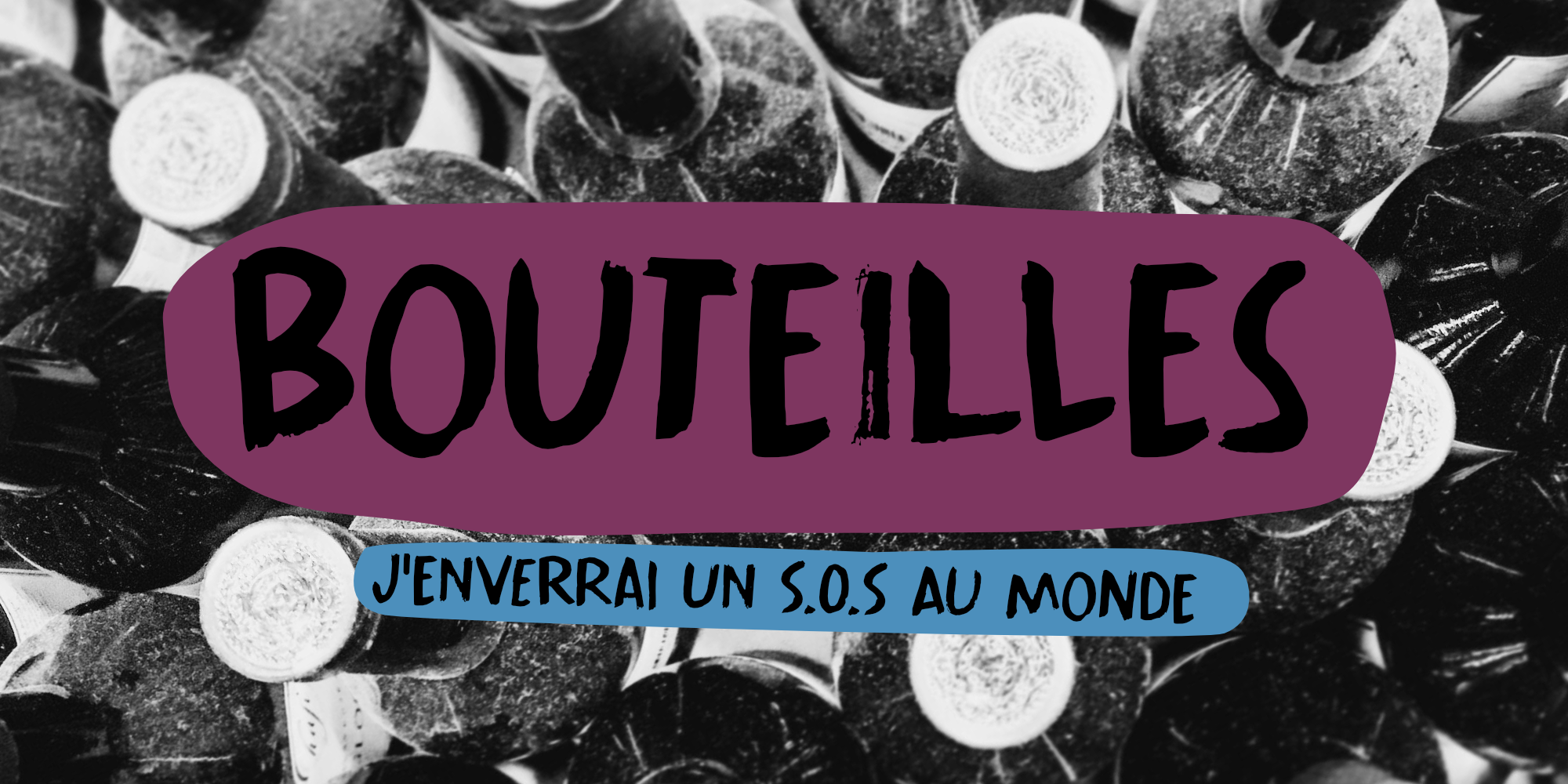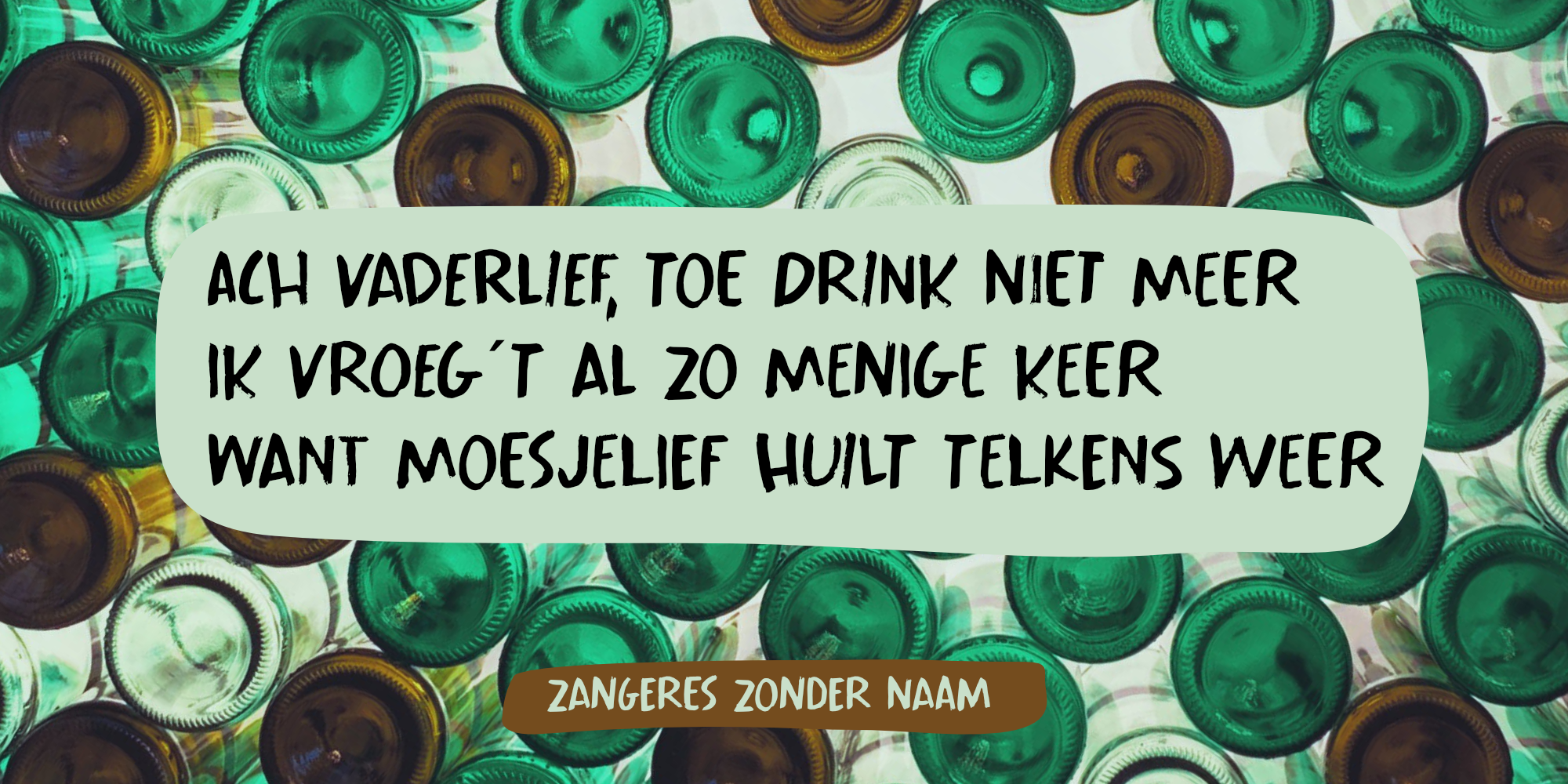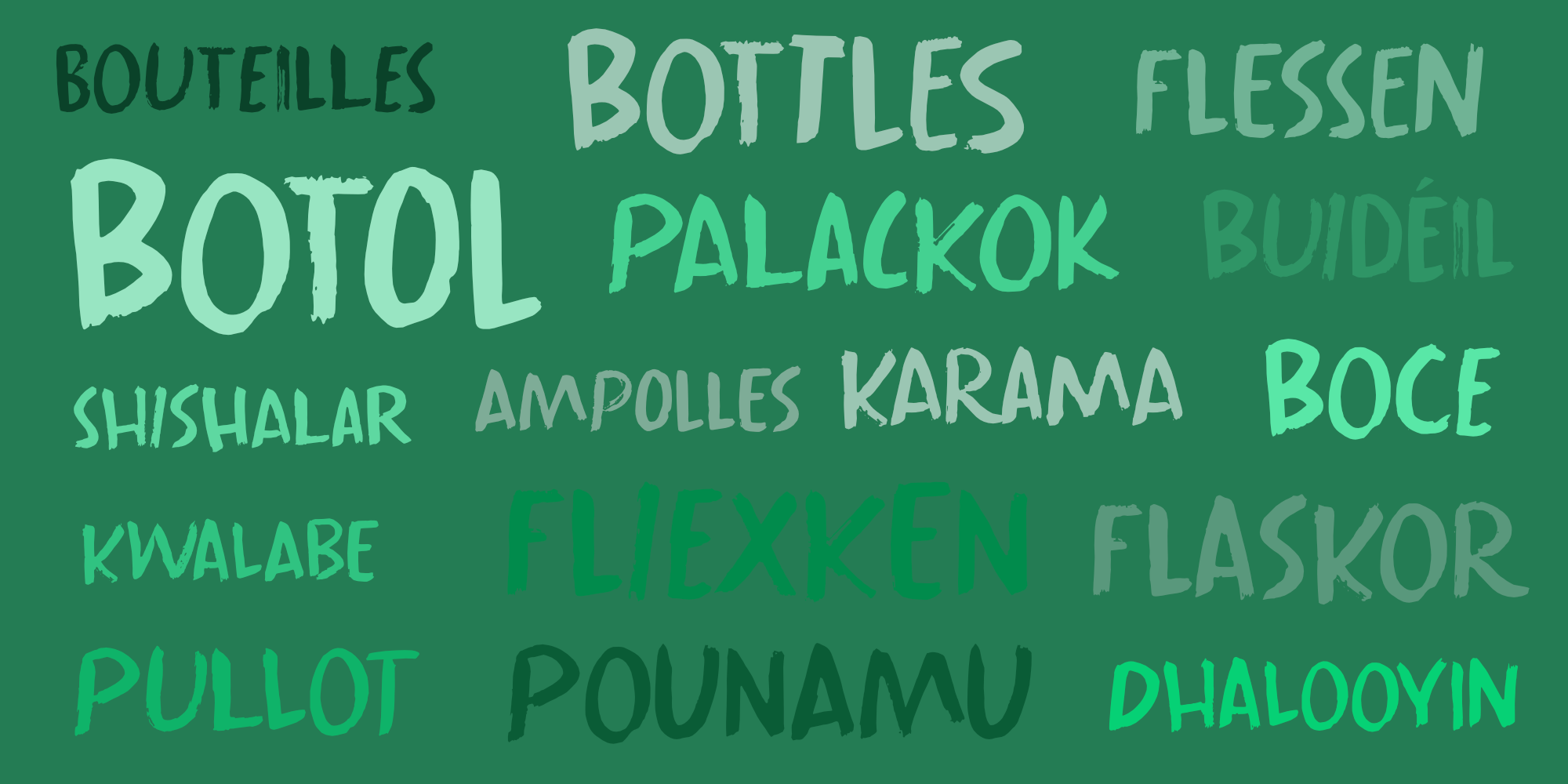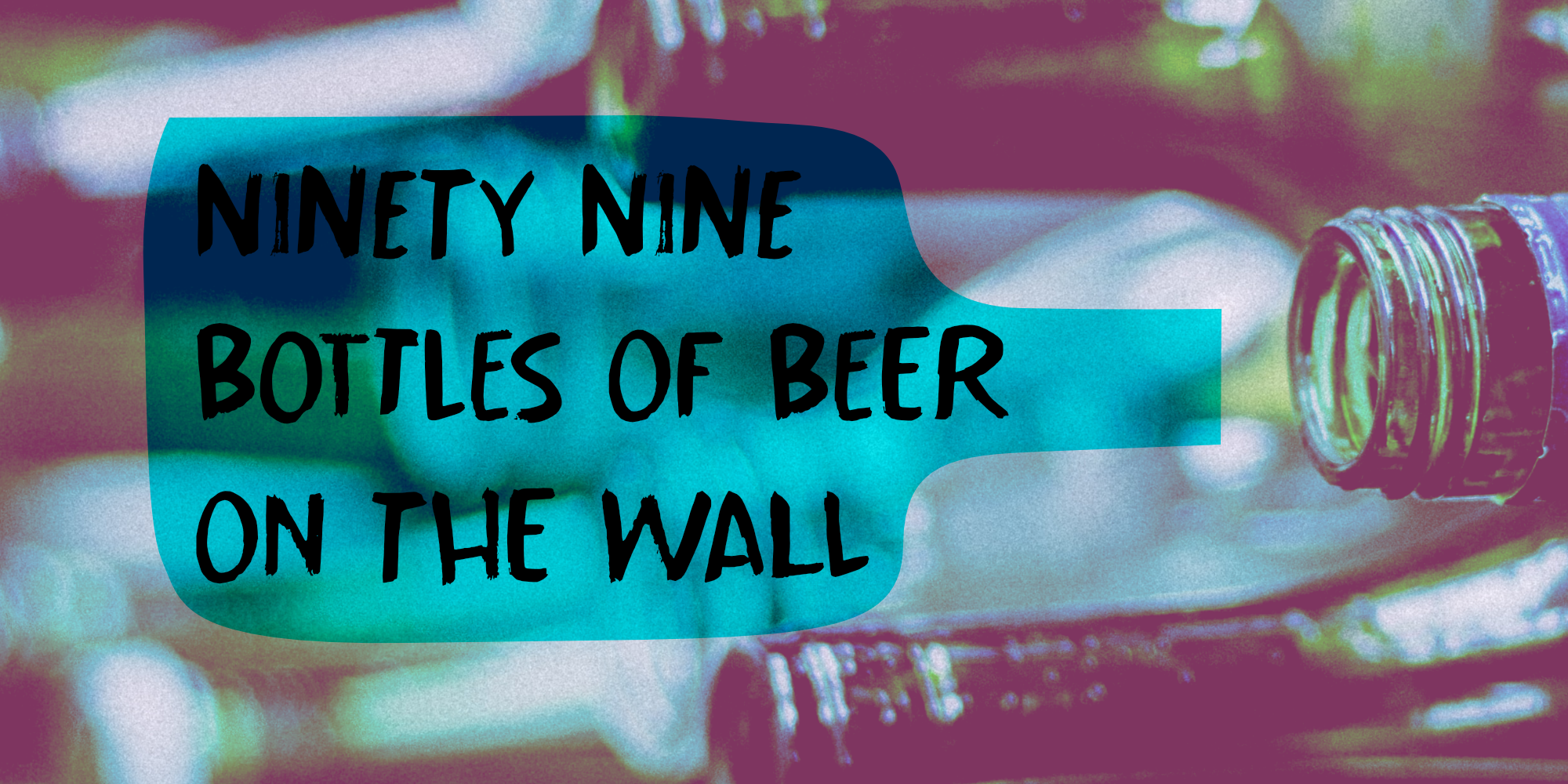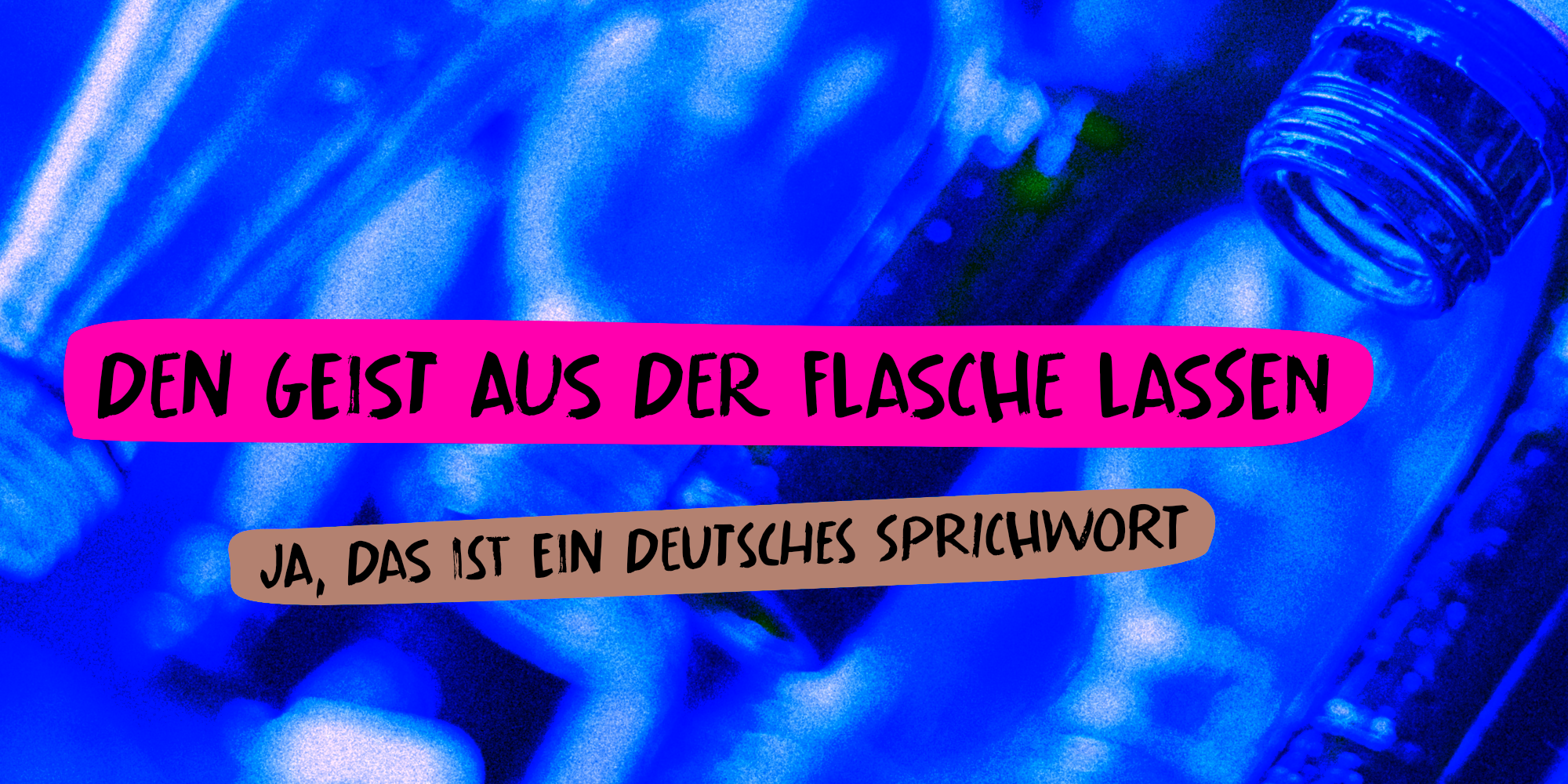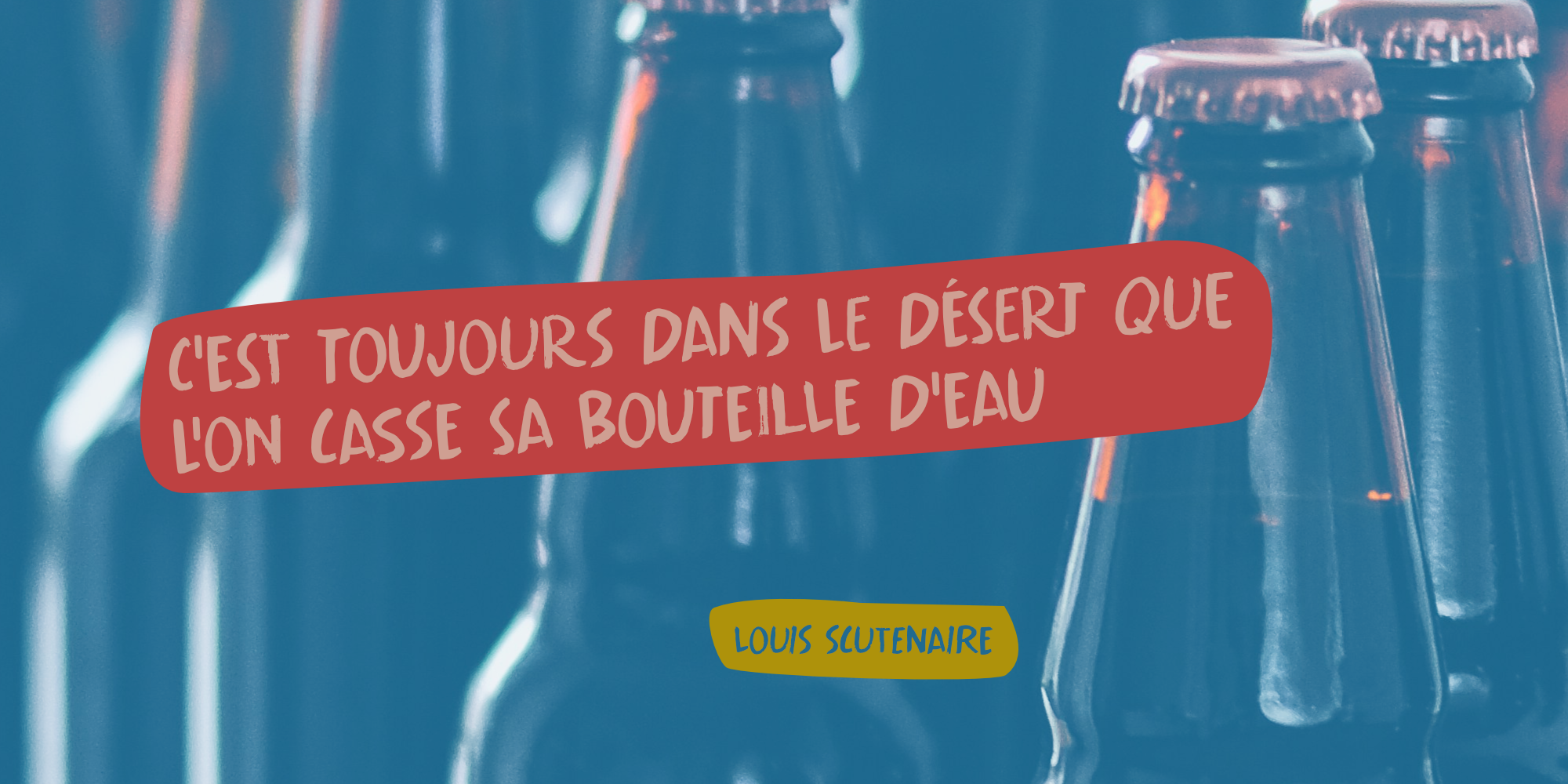
Bouteilles (2 fonts)
Bouteilles is a nice brush font I made with my trusted Chinese ink and a really worn brush I found. It comes with all the diacritics you need plus two sets of alternates, which you can play with!